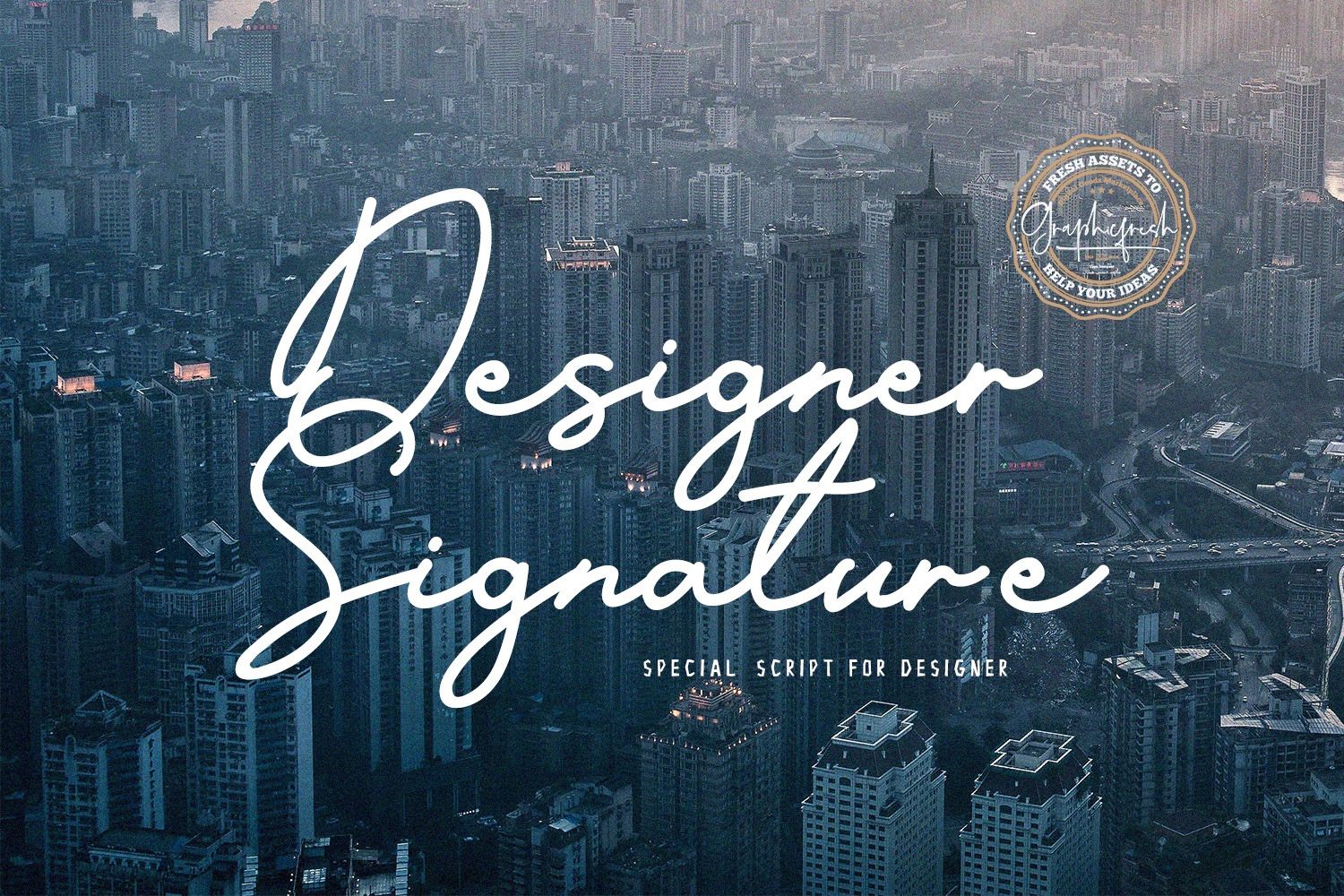
Designer Signature Font
Introducing Designer Signature Font. It comes with an elegant style which is perfect to make any design stand out! This font is perfect for branding, wedding invites, magazines, mugs, business cards, quotes, posters, and more.
Designer Signature Font Type Features:
- Suitable for Headlines, Logotypes, Signs, Posters, Letterhead, T-Shirt and many more.